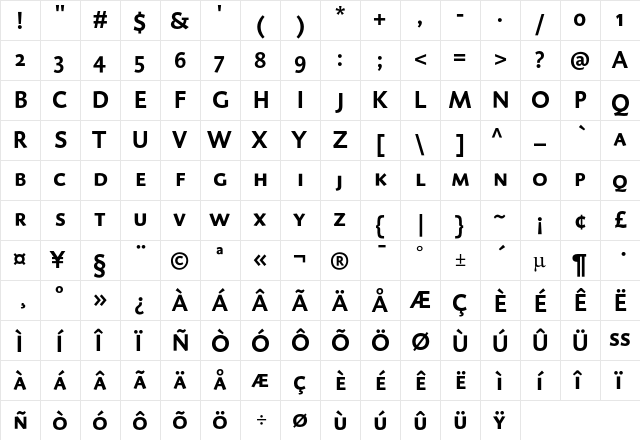
DTL Caspari T Caps Bold Font Preview
DTL Caspari T Caps Bold
DTL Caspari T Caps Bold Font Details
Design Context for DTL Caspari Typeface
DTL Caspari offers clean, dependable letterforms without strong stylistic allegiance, making it a practical choice for designers who need flexibility. Its bold stroke weight gives it real presence on the page.